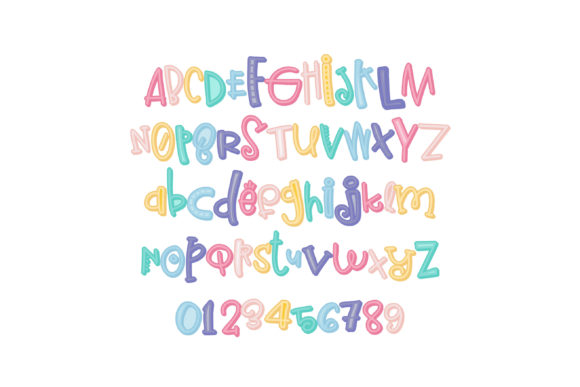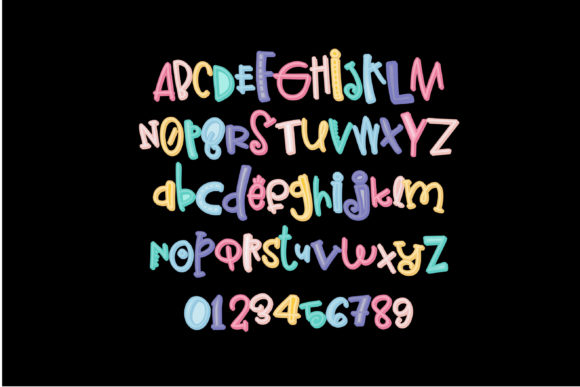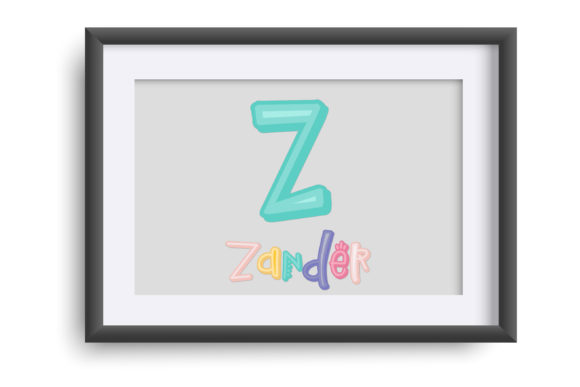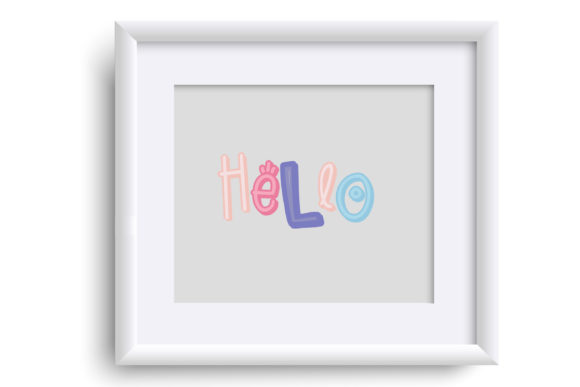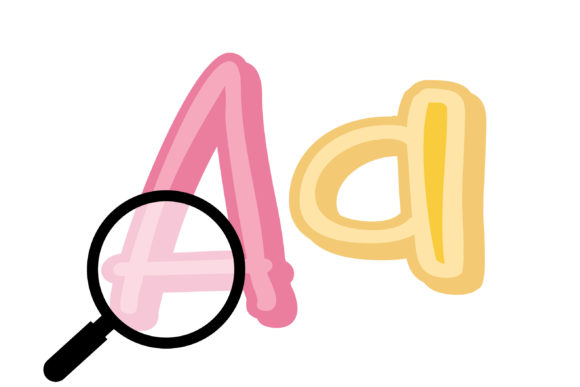
Introduction to Sherbet Wave Font
Have you ever been working on a creative project, pouring your heart and soul into it, only to be limited by the constraints of a dull, uninspiring font? We’ve all been there – the spark that ignites our imagination, the burst of creativity that makes our project come alive, is often stifled by the lack of a high-quality, visually appealing font. That’s where the Sherbet Wave Font comes in – a whimsical, pastel-colored font that adds a touch of magic to any design.
This enchanting font features a bouncy baseline of lettering that’s as playful as it is sophisticated. With its transparent background and vibrant colors, the Sherbet Wave Font is the perfect design resource for anyone looking to add a touch of whimsy to their creative project.
Key Features of Sherbet Wave Font
- Unique, hand-drawn design for creative projects, perfect for adding a touch of whimsy and personality to your work.
- Perfect for use in a range of creative projects, from graphic novels and comics to children’s books and educational materials.
Honest Review: Sherbet Wave Font
I recently stumbled upon the Sherbet Wave Font, and I must say it’s a lovely addition to any designer’s toolkit. As a design enthusiast, I appreciate fonts that offer a high quality and unique aesthetic. The Sherbet Wave Font is no exception, with its distinctive wave-like curves that add a touch of whimsy to any creative project.
Here are some pros and cons of the Sherbet Wave Font:
- ✨ Unique and creative design that adds a touch of personality to any project
- ✨ High quality and professional appearance
- ✨ Transparent background makes it easy to use in different design contexts
- ⚠️ May not be suitable for formal or corporate designs
Overall, I’m quite impressed with the Sherbet Wave Font. It’s a great design resource for anyone looking to add some creativity and flair to their projects. Just be aware of its limitations and use it in the right context.
The Sherbet Wave Font is ideal for various creative projects, including:
- Infographics and data visualizations
- Wedding invitations and event designs